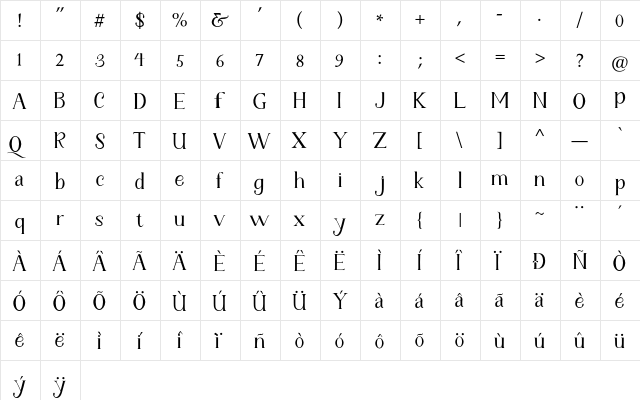
Fetance Regular
| Foundry | star studio |
Design Context for Fetance Typeface
Fetance takes a measured approach to typography — its balanced proportions and neutral character make it a reliable workhorse for both digital and print work.